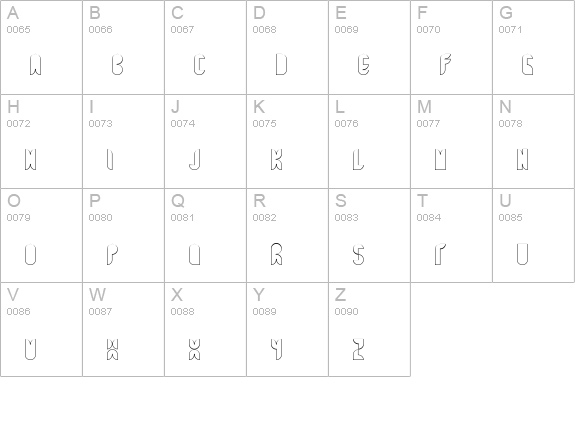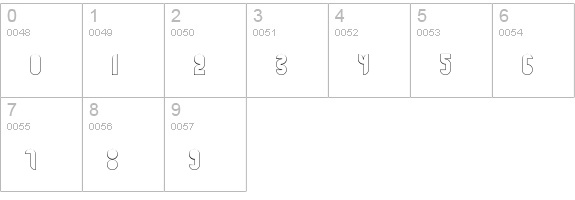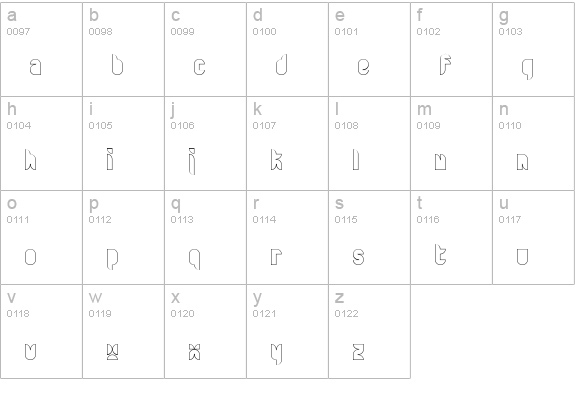
Bath BlackOutline Font Details
Bath BlackOutline font is a stylish and modern typeface that stands out with its bold and sleek design. This font exudes sophistication and elegance, making it perfect for a wide range of design projects. Its clean lines and sharp edges give it a contemporary and professional look that will elevate any project it is used in. Best of all, Bath BlackOutline font is available for free download at FontsMarket.com. This means you can easily access this high-quality font without any cost, making it a fantastic option for designers looking to add a touch of sophistication to their work without breaking the bank. Don't miss out on the opportunity to enhance your designs with Bath BlackOutline font - download it for free today!